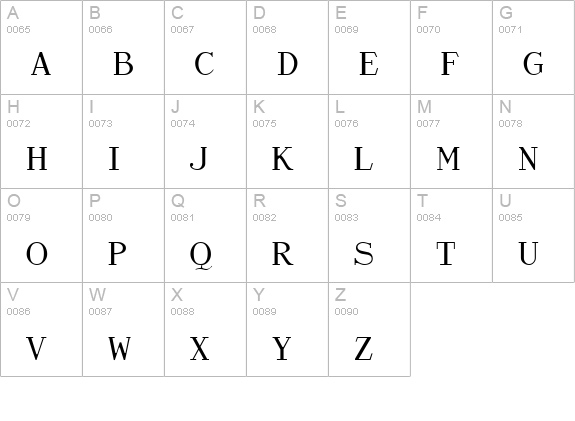
Chap Clerk Tryout Font Details
Introducing Chap Clerk Tryout font, a dynamic and stylish typeface that exudes modernity and sophistication. With its clean lines and bold presence, this font is perfect for a wide range of design projects, from branding to editorial design. The Chap Clerk Tryout font features a unique blend of geometric shapes and sleek letterforms, creating a distinct visual impact that is sure to capture attention. Whether you're looking to add a touch of elegance to your website or create eye-catching posters, this font is a versatile choice that will elevate your designs to the next level. Best of all, Chap Clerk Tryout font is available for free download at FontsMarket.com, making it accessible to designers of all levels. Don't miss out on the opportunity to add this stunning font to your collection and take your projects to new heights with its modern and professional aesthetic.